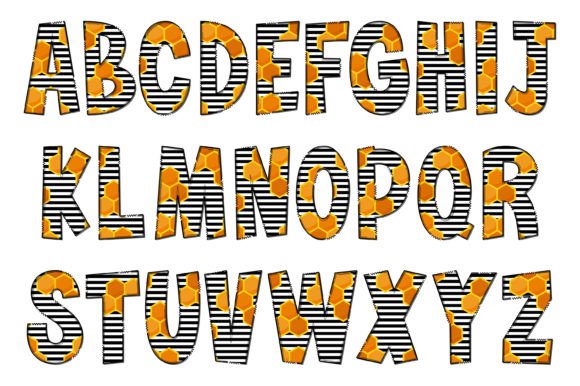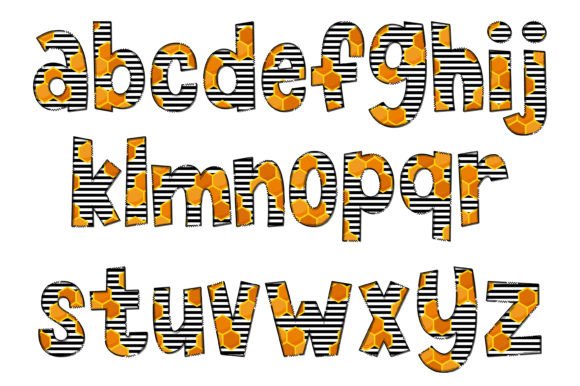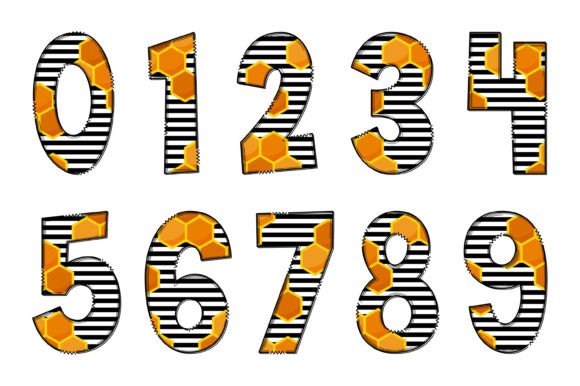
Discover the Buzz in Design with Bee Hive Font
Have you ever sat down to create a design and suddenly, the perfect font pops into your head? For many of us, it’s a moment of pure creative joy. It’s that feeling of knowing exactly the right tool to bring your vision to life. For designers looking to add a touch of whimsy and fun to their projects, the Bee Hive Font is just that.
With its playful, artistic feel, this color font is perfect for children’s books, posters, invitations, and more. By using the Bee Hive Font, designers can create engaging, easy-to-read experiences that capture young audiences’ attention. And with its compatibility with popular design software like PhotoShop and Illustrator, it’s easy to integrate into your workflow.
Bee Hive Font Key Features
- Font Family: Bee Hive is a unique, handwritten font designed to mimic the natural, organic patterns found in beehives.
- Unique Characteristics: The font’s distinctive, hand-drawn feel and intricate patterns make it ideal for creating eye-catching, creative designs.
Bee Hive Font Review
Overall, I think the Bee Hive Font is a fun and unique addition to any design project. The font has a lot of character, and the ✨ quirky bee-themed elements really stand out.
- ✨ Unique design: The Bee Hive Font is unlike any other font I’ve seen, and its playful bee theme makes it a great choice for projects that need a bit of whimsy.
- ✨ Versatile: Despite its playful nature, the font is surprisingly versatile and can be used in a wide range of projects, from children’s books to advertisements.
- ✨ Customizable: The font is highly customizable, allowing designers to adjust the size, color, and spacing to fit their needs.
- ⚠️ Limited character set: The font’s character set is somewhat limited, which may make it difficult to use for longer blocks of text.
- ⚠️ Not ideal for formal projects: Due to its playful nature, the Bee Hive Font may not be the best choice for formal projects or those that require a more professional tone.
Overall, I think the Bee Hive Font is a great choice for designers who want to add a bit of fun and personality to their projects. Just be aware of its limitations, and use it wisely.
The Bee Hive font is perfect for:
- Creating eye-catching headings and titles.
- Designing custom logos and graphics.
- Adding a unique touch to presentations and documents.
Alternatives to Bee Hive Font
Great Vibes is a beautiful, elegant script font that can be used for titles, headings, and other design elements where a touch of sophistication is needed. It’s perfect for wedding invitations, branding, and advertising materials. Great Vibes has a more refined and polished look compared to Bee Hive Font, which is more playful and casual.
Carolyna Pro is a modern, elegant script font that’s ideal for luxury branding, high-end advertising, and fashion design. It’s more polished and refined than Bee Hive Font, with a touch of sophistication and glamour. Carolyna Pro is perfect for creating a sense of exclusivity and high-end quality.
Alex Brush is a elegant, handwritten script font that’s perfect for creating a sense of warmth and personality in your designs. It’s more casual and approachable than Bee Hive Font, with a touch of whimsy and charm. Alex Brush is ideal for branding, advertising, and packaging design.
Pacifico is a beautiful, elegant script font that’s inspired by the laid-back, beachy vibe of the Pacific coast. It’s perfect for creating a sense of relaxation and calm in your designs, and is ideal for branding, advertising, and packaging design. Pacifico has a more laid-back and casual look compared to Bee Hive Font, which is more playful and energetic.